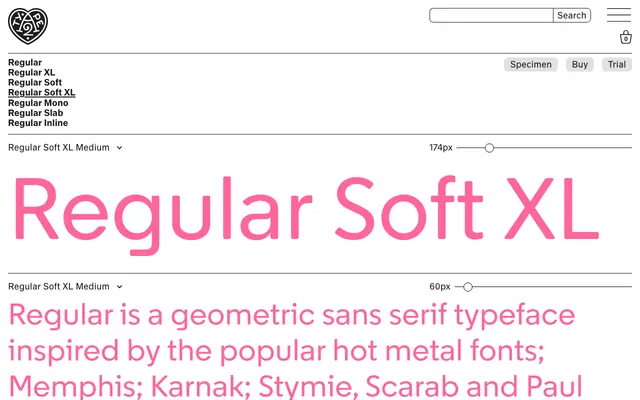
Regular Soft XL specimen from A2-Type
A softened geometric sans from A2-Type, drawing on Futura and the hot metal geometric tradition for use across print and screen at a range of sizes.
Part of A2-Type's broader Regular superfamily, the Soft XL variant trades on the geometric modernist lineage of Futura, Memphis and Stymie while introducing a softness intended to preserve legibility at smaller sizes without losing personality at large ones. Seven weights from Light to Black are paired with matching italics, giving the family solid coverage for editorial and UI work. The 'XL' designation sits alongside Regular, Regular Soft, Regular Mono, Regular Slab and Regular Inline as a named subfamily within the wider system.
Explicitly described as a geometric sans serif, drawing on hot metal geometric precedents including Futura, Memphis, Karnak and Stymie. The 'Soft' variant implies rounded or softened terminals within that geometric framework.